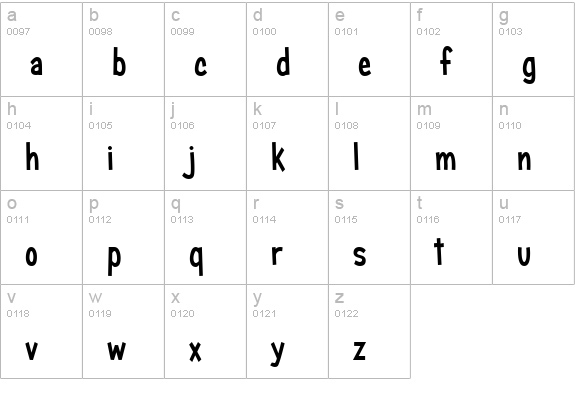
Candy Square BTN Cond Bold is a strong, high-contrast, condensed-width variant in the Candy typeface family \xE2\x80\x94 well suited to headlines, attention-grabbing titles, and strong calls-to-action.
Candy Square BTN Cond Bold is a playful and eye-catching font that will add a touch of fun to any project. With its bold and square design, this font is perfect for creating attention-grabbing headlines and titles. The unique and quirky style of Candy Square BTN Cond Bold makes it suitable for a wide range of design projects, from posters to logos to packaging. Best of all, Candy Square BTN Cond Bold is available for free download at FontsMarket.com. So why wait? Add this delightful font to your collection today and let your creativity shine!